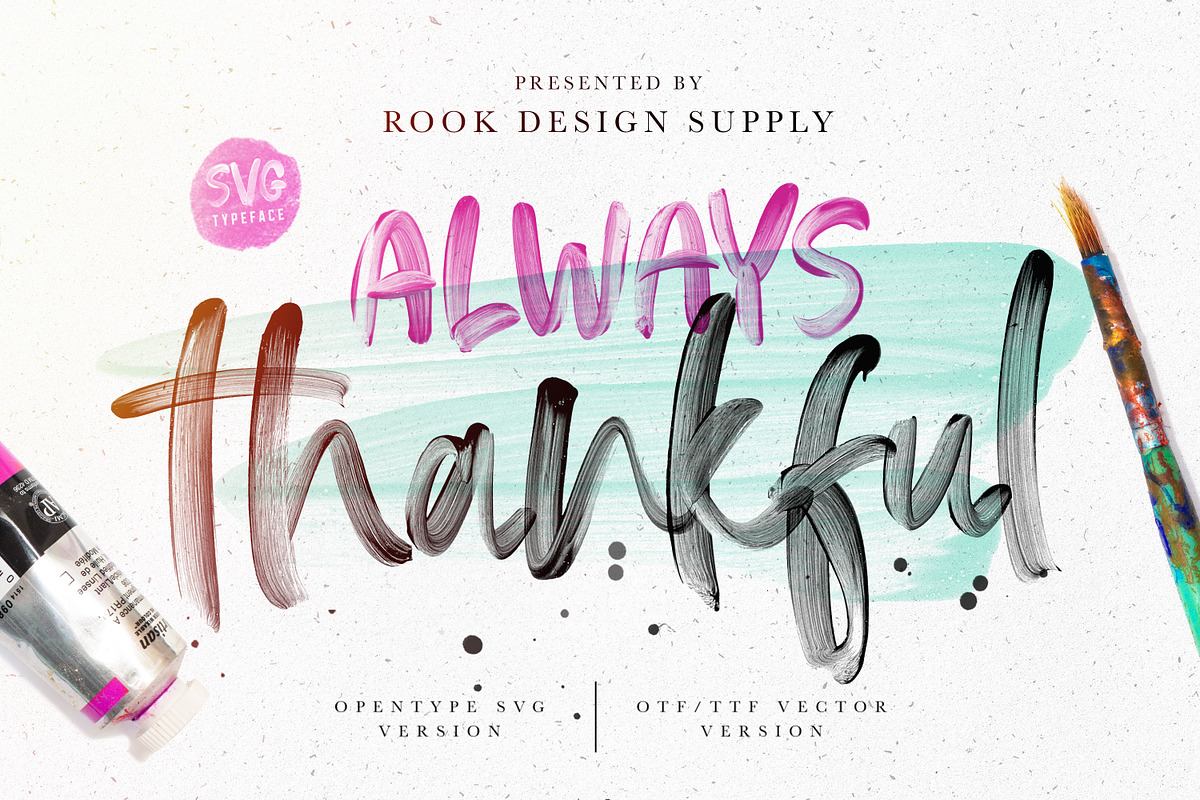
Always Thankful - SVG Font Duo Free Download
Always Thankful - SVG Font Duo Free Download is a beautifully crafted typeface pair that brings warmth, texture, and elegance to your designs. Featuring a rich SVG script with realistic brush textures and a clean complementary serif, this duo is perfect for seasonal graphics, wedding stationery, product packaging, and heartfelt quotes.
Always Thankful - SVG Font Duo Free Download allows you to create stunning layered designs with a handcrafted feel. Whether you’re aiming for a cozy fall aesthetic or an expressive, artistic vibe, this font combo adds charm and authenticity to every project. Download it today and bring your creative vision to life with the perfect mix of softness and sophistication.